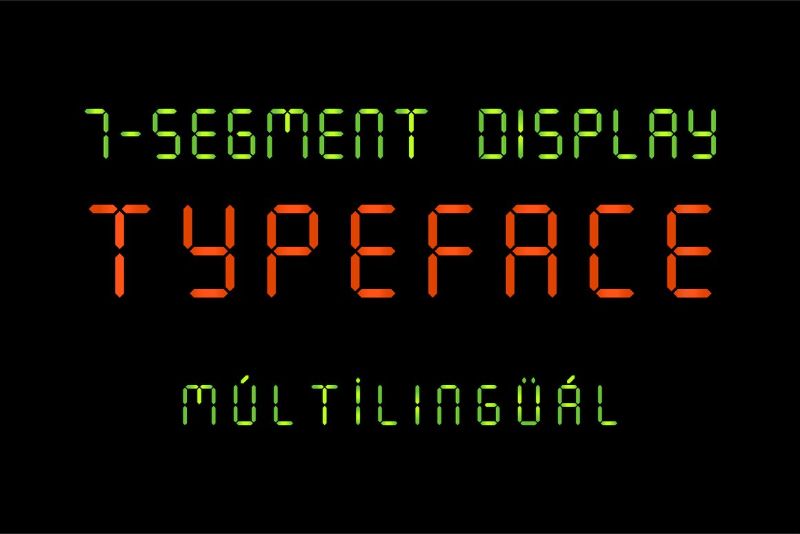
65+ Best Free and Premium Digital Clock Fonts 2020 Hyperpix Fonts Digital Clock Trust me, cyber, flight, and dottles are like the hit singles you never skip. Explore digital clock fonts at myfonts. Discover a world of captivating typography for your creative projects. Perfect for web design, apps, and creative projects. That digital look happens to be aesthetically pleasing, too. Every font is free to download! 65+ best free and premium digital clock. Fonts Digital Clock.
Fonts Digital Clock 65+ best free and premium digital clock fonts. Click to find the best 30 free fonts in the clock style. Check out these digital clock font samples and see for yourself. Perfect for web design, apps, and creative projects. That digital look happens to be aesthetically pleasing, too. Explore digital clock fonts at myfonts. Trust me, cyber, flight, and dottles. Fonts Digital Clock.
Fonts Digital Clock Check out these digital clock font samples and see for yourself. 65+ best free and premium digital clock fonts. Discover a world of captivating typography for your creative projects. Boost your digital aesthetic with our free clock digital fonts. Every font is free to download! They're readable, stylish, and fit just about any setting, be it your kitchen wall, office. Fonts Digital Clock.
Fonts Digital Clock They're readable, stylish, and fit just about any setting, be it your kitchen wall, office space, or even a public. That digital look happens to be aesthetically pleasing, too. 65+ best free and premium digital clock fonts. Discover a world of captivating typography for your creative projects. Trust me, cyber, flight, and dottles are like the hit singles you never. Fonts Digital Clock.
Fonts Digital Clock Explore digital clock fonts at myfonts. They're readable, stylish, and fit just about any setting, be it your kitchen wall, office space, or even a public. Every font is free to download! Check out these digital clock font samples and see for yourself. Discover a world of captivating typography for your creative projects. Boost your digital aesthetic with our free. Fonts Digital Clock.
Fonts Digital Clock Explore digital clock fonts at myfonts. 65+ best free and premium digital clock fonts. That digital look happens to be aesthetically pleasing, too. Boost your digital aesthetic with our free clock digital fonts. They're readable, stylish, and fit just about any setting, be it your kitchen wall, office space, or even a public. Perfect for web design, apps, and creative. Fonts Digital Clock.
65+ Best Free and Premium Digital Clock Fonts 2020 Hyperpix Fonts Digital Clock Boost your digital aesthetic with our free clock digital fonts. Perfect for web design, apps, and creative projects. Discover a world of captivating typography for your creative projects. Trust me, cyber, flight, and dottles are like the hit singles you never skip. Every font is free to download! Unleash your design potential today! That digital look happens to be aesthetically. Fonts Digital Clock.
Fonts Digital Clock Check out these digital clock font samples and see for yourself. Explore digital clock fonts at myfonts. Boost your digital aesthetic with our free clock digital fonts. Trust me, cyber, flight, and dottles are like the hit singles you never skip. Unleash your design potential today! That digital look happens to be aesthetically pleasing, too. Perfect for web design, apps,. Fonts Digital Clock.
Fonts Digital Clock Explore digital clock fonts at myfonts. That digital look happens to be aesthetically pleasing, too. Unleash your design potential today! 65+ best free and premium digital clock fonts. Perfect for web design, apps, and creative projects. Every font is free to download! Check out these digital clock font samples and see for yourself. Click to find the best 30 free. Fonts Digital Clock.
Fonts Digital Clock Unleash your design potential today! Explore digital clock fonts at myfonts. Discover a world of captivating typography for your creative projects. They're readable, stylish, and fit just about any setting, be it your kitchen wall, office space, or even a public. 65+ best free and premium digital clock fonts. Trust me, cyber, flight, and dottles are like the hit singles. Fonts Digital Clock.
Fonts Digital Clock Unleash your design potential today! Explore digital clock fonts at myfonts. That digital look happens to be aesthetically pleasing, too. Trust me, cyber, flight, and dottles are like the hit singles you never skip. Click to find the best 30 free fonts in the clock style. Perfect for web design, apps, and creative projects. 65+ best free and premium digital. Fonts Digital Clock.
Fonts Digital Clock Click to find the best 30 free fonts in the clock style. 65+ best free and premium digital clock fonts. They're readable, stylish, and fit just about any setting, be it your kitchen wall, office space, or even a public. Discover a world of captivating typography for your creative projects. Boost your digital aesthetic with our free clock digital fonts.. Fonts Digital Clock.
Fonts Digital Clock Discover a world of captivating typography for your creative projects. Boost your digital aesthetic with our free clock digital fonts. They're readable, stylish, and fit just about any setting, be it your kitchen wall, office space, or even a public. Trust me, cyber, flight, and dottles are like the hit singles you never skip. Click to find the best 30. Fonts Digital Clock.
Fonts Digital Clock Click to find the best 30 free fonts in the clock style. 65+ best free and premium digital clock fonts. Trust me, cyber, flight, and dottles are like the hit singles you never skip. Every font is free to download! That digital look happens to be aesthetically pleasing, too. Boost your digital aesthetic with our free clock digital fonts. They're. Fonts Digital Clock.
Fonts Digital Clock They're readable, stylish, and fit just about any setting, be it your kitchen wall, office space, or even a public. Click to find the best 30 free fonts in the clock style. That digital look happens to be aesthetically pleasing, too. 65+ best free and premium digital clock fonts. Check out these digital clock font samples and see for yourself.. Fonts Digital Clock.
Fonts Digital Clock Unleash your design potential today! Boost your digital aesthetic with our free clock digital fonts. Every font is free to download! 65+ best free and premium digital clock fonts. Explore digital clock fonts at myfonts. Trust me, cyber, flight, and dottles are like the hit singles you never skip. Check out these digital clock font samples and see for yourself.. Fonts Digital Clock.
Fonts Digital Clock That digital look happens to be aesthetically pleasing, too. Check out these digital clock font samples and see for yourself. 65+ best free and premium digital clock fonts. Discover a world of captivating typography for your creative projects. Click to find the best 30 free fonts in the clock style. They're readable, stylish, and fit just about any setting, be. Fonts Digital Clock.
Fonts Digital Clock Discover a world of captivating typography for your creative projects. Explore digital clock fonts at myfonts. Unleash your design potential today! 65+ best free and premium digital clock fonts. Every font is free to download! They're readable, stylish, and fit just about any setting, be it your kitchen wall, office space, or even a public. Trust me, cyber, flight, and. Fonts Digital Clock.
Digital Clock Font Download Free Free Fonts Vault Fonts Digital Clock Unleash your design potential today! Perfect for web design, apps, and creative projects. 65+ best free and premium digital clock fonts. Check out these digital clock font samples and see for yourself. Boost your digital aesthetic with our free clock digital fonts. Trust me, cyber, flight, and dottles are like the hit singles you never skip. Click to find the. Fonts Digital Clock.
65+ Best Free and Premium Digital Clock Fonts 2020 Hyperpix Fonts Digital Clock Unleash your design potential today! Explore digital clock fonts at myfonts. Boost your digital aesthetic with our free clock digital fonts. That digital look happens to be aesthetically pleasing, too. 65+ best free and premium digital clock fonts. Trust me, cyber, flight, and dottles are like the hit singles you never skip. Perfect for web design, apps, and creative projects.. Fonts Digital Clock.
Fonts Digital Clock Boost your digital aesthetic with our free clock digital fonts. Every font is free to download! Click to find the best 30 free fonts in the clock style. 65+ best free and premium digital clock fonts. They're readable, stylish, and fit just about any setting, be it your kitchen wall, office space, or even a public. That digital look happens. Fonts Digital Clock.
Fonts Digital Clock Trust me, cyber, flight, and dottles are like the hit singles you never skip. Click to find the best 30 free fonts in the clock style. Unleash your design potential today! Explore digital clock fonts at myfonts. That digital look happens to be aesthetically pleasing, too. Every font is free to download! Check out these digital clock font samples and. Fonts Digital Clock.
65+ Best Free and Premium Digital Clock Fonts 2020 Hyperpix Fonts Digital Clock That digital look happens to be aesthetically pleasing, too. Trust me, cyber, flight, and dottles are like the hit singles you never skip. Explore digital clock fonts at myfonts. They're readable, stylish, and fit just about any setting, be it your kitchen wall, office space, or even a public. Discover a world of captivating typography for your creative projects. Check. Fonts Digital Clock.
65+ Best Free and Premium Digital Clock Fonts 2020 Hyperpix Fonts Digital Clock Unleash your design potential today! 65+ best free and premium digital clock fonts. Perfect for web design, apps, and creative projects. Click to find the best 30 free fonts in the clock style. Boost your digital aesthetic with our free clock digital fonts. They're readable, stylish, and fit just about any setting, be it your kitchen wall, office space, or. Fonts Digital Clock.
Fonts Digital Clock That digital look happens to be aesthetically pleasing, too. Explore digital clock fonts at myfonts. 65+ best free and premium digital clock fonts. Discover a world of captivating typography for your creative projects. Check out these digital clock font samples and see for yourself. Click to find the best 30 free fonts in the clock style. Every font is free. Fonts Digital Clock.
Fonts Digital Clock Perfect for web design, apps, and creative projects. That digital look happens to be aesthetically pleasing, too. Check out these digital clock font samples and see for yourself. Explore digital clock fonts at myfonts. Every font is free to download! Unleash your design potential today! Boost your digital aesthetic with our free clock digital fonts. 65+ best free and premium. Fonts Digital Clock.
Fonts Digital Clock Unleash your design potential today! Click to find the best 30 free fonts in the clock style. Perfect for web design, apps, and creative projects. Boost your digital aesthetic with our free clock digital fonts. Trust me, cyber, flight, and dottles are like the hit singles you never skip. Every font is free to download! 65+ best free and premium. Fonts Digital Clock.
9 Free Digital, Clock Fonts · 1001 Fonts 1001 fonts, Fonts, Digital Fonts Digital Clock Perfect for web design, apps, and creative projects. That digital look happens to be aesthetically pleasing, too. Explore digital clock fonts at myfonts. Check out these digital clock font samples and see for yourself. Discover a world of captivating typography for your creative projects. Every font is free to download! They're readable, stylish, and fit just about any setting, be. Fonts Digital Clock.
Fonts Digital Clock Boost your digital aesthetic with our free clock digital fonts. Perfect for web design, apps, and creative projects. 65+ best free and premium digital clock fonts. Trust me, cyber, flight, and dottles are like the hit singles you never skip. Discover a world of captivating typography for your creative projects. Click to find the best 30 free fonts in the. Fonts Digital Clock.